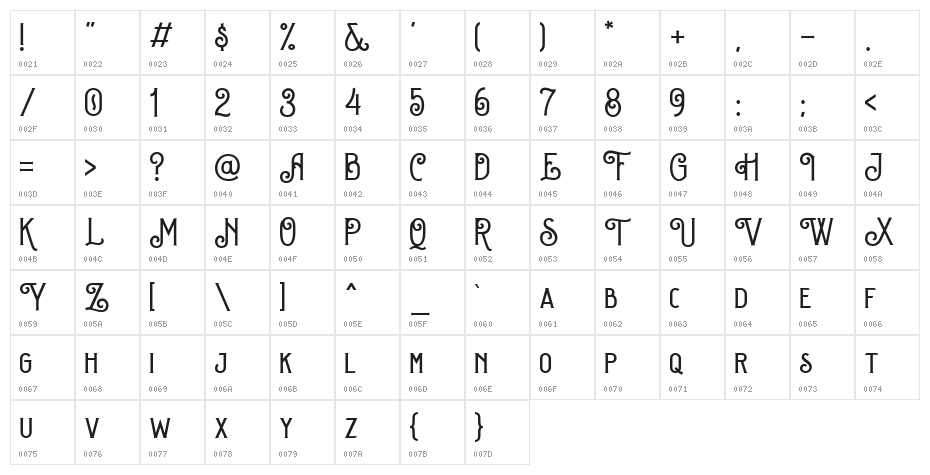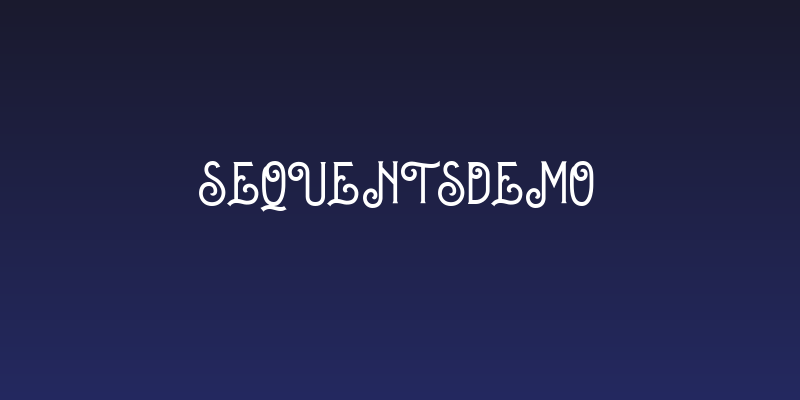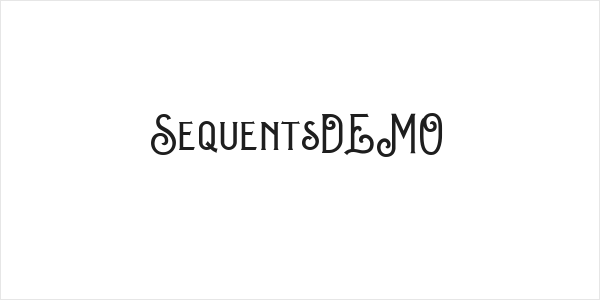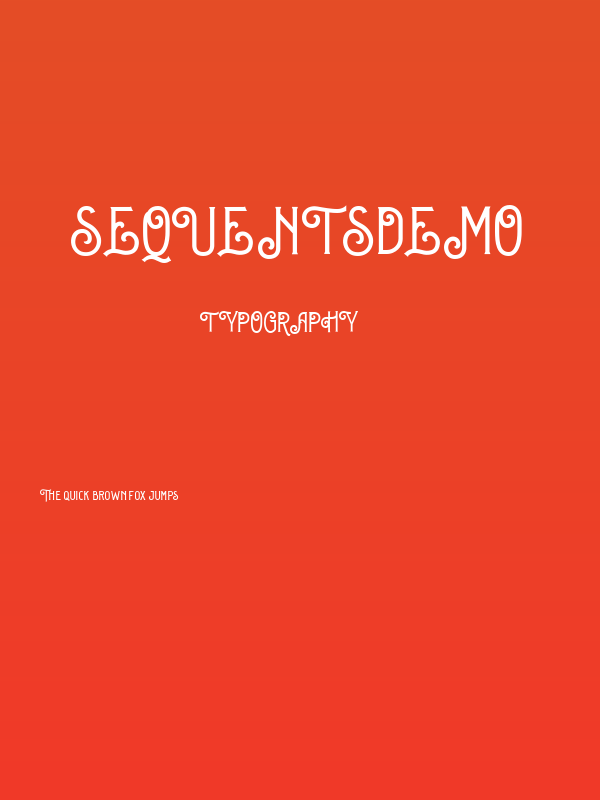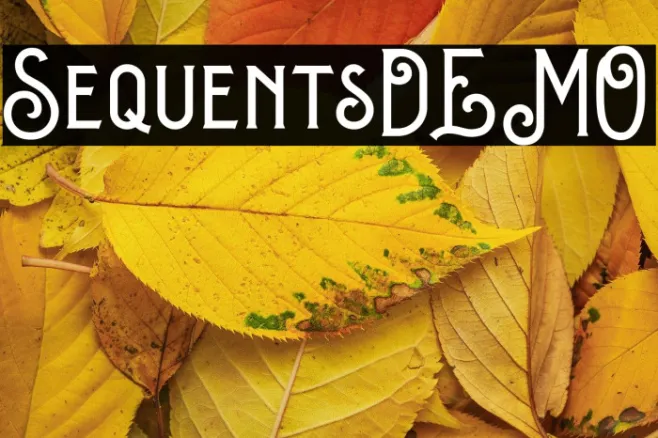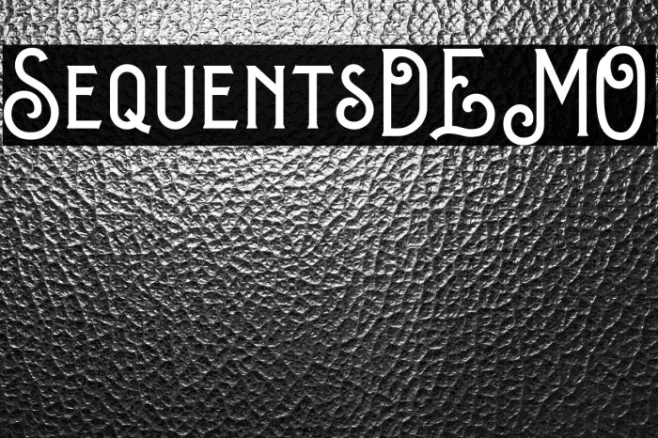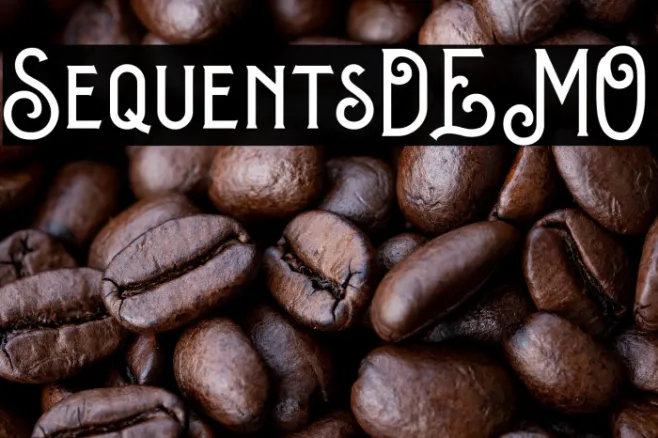
SequentsDEMO Font
SequentsDEMO Description
This font features a unique blend of decorative and modern elements, characterized by its curly serifs and playful swirls on certain characters. The uppercase letters exhibit a whimsical flair, with exaggerated curves and loops that add a touch of elegance and creativity. The lowercase letters maintain a more straightforward appearance, providing a balanced contrast to the ornate uppercase. Numbers and special characters follow the same decorative style, making them stand out with their artistic embellishments. The overall design is eye-catching and suitable for projects that require a distinctive and artistic touch.
| Proposed Projects | Ideal for creative projects such as invitations, posters, branding, and any design that seeks to convey a sense of whimsy and elegance. |